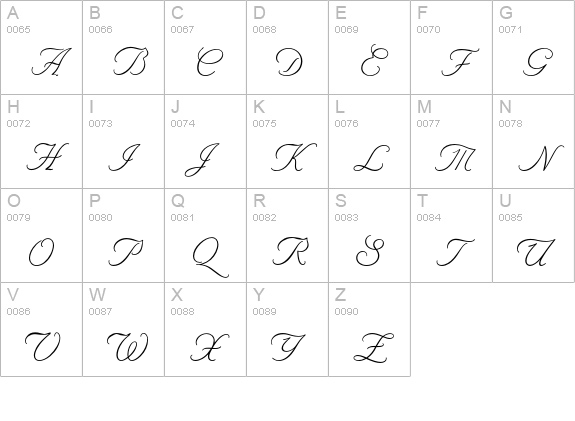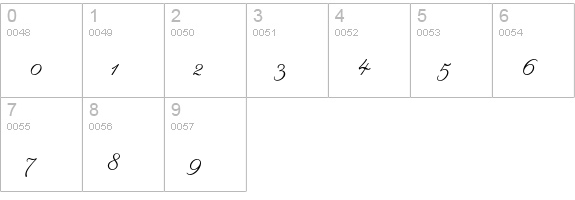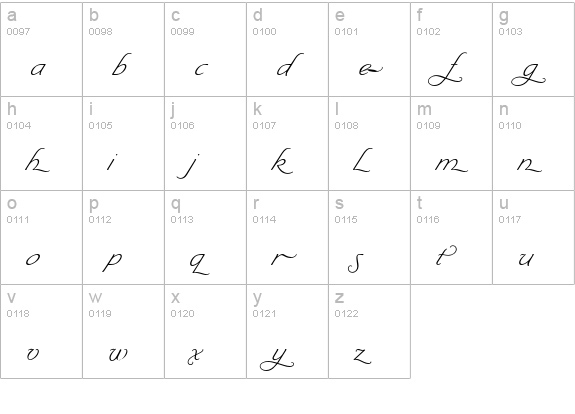
Byron RR Swash Light is a refined, elegant variant in the Byron typeface family \xE2\x80\x94 well suited to elegant body text, refined sub-headings, and luxury branding.
Byron RR Swash Light is an elegant and stylish font that exudes sophistication and charm. Its delicate swashes and graceful curves add a touch of class to any design project. This font is perfect for creating invitations, branding materials, and other creative projects that require a touch of refinement. The best part about Byron RR Swash Light font is that it is available for free download at FontsMarket.com. You can easily add this beautiful typeface to your collection without having to spend a penny. Don't miss out on the opportunity to enhance your designs with the timeless beauty of Byron RR Swash Light font. Download it today and let your creativity shine!